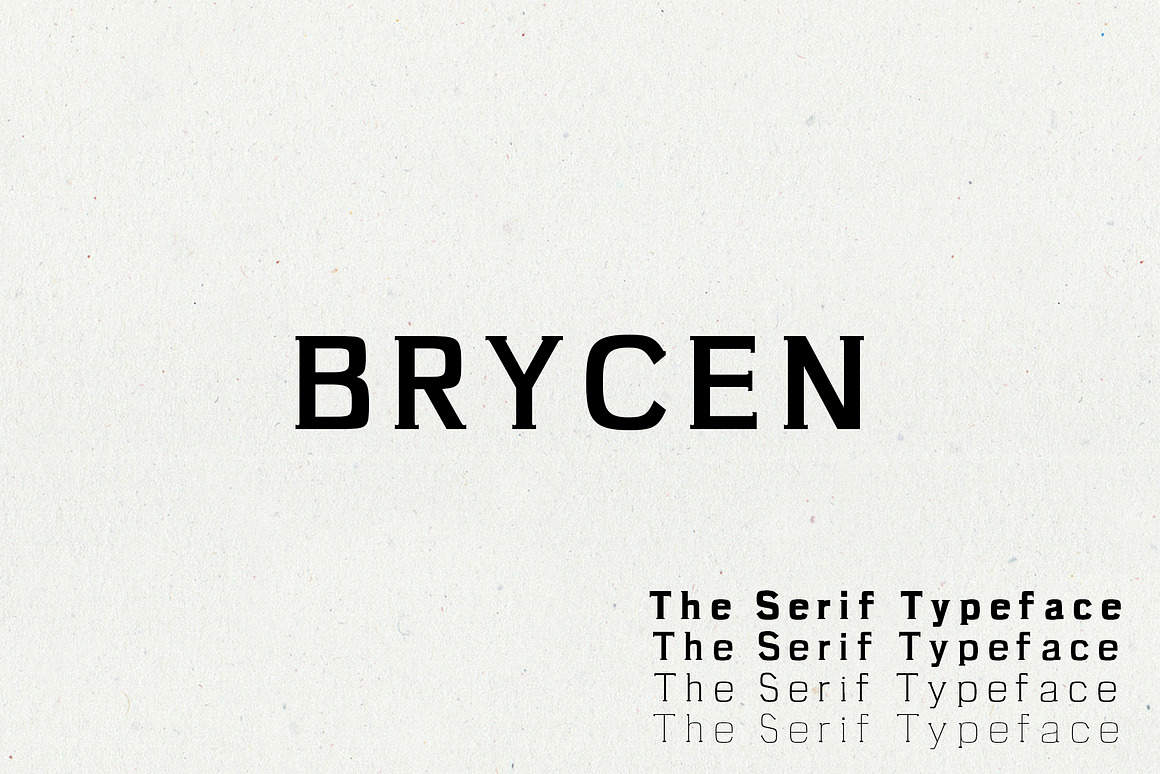
Brycen Serif Premium 7 Font Family
Brycen Serif Premium 7 Font Family is perfect for luxury book publishing, premium magazine layouts, sophisticated corporate communications, upscale branding materials, academic publications, professional documentation, editorial excellence, and distinguished print applications.
Brycen Serif Premium 7 Font Family is exciting because it delivers unparalleled typographic sophistication with meticulously crafted serif details and refined proportions that ensure exceptional readability while projecting premium quality. Its comprehensive weight range provides complete design flexibility for complex publishing projects requiring editorial excellence and professional distinction.
Brycen Serif Premium 7 Font Family family includes seven weights from thin to black with matching italic variations, offering designers fourteen expertly balanced font styles for complete typographic control and sophisticated hierarchical systems across all premium applications.
Brycen Serif Premium 7 Font Family Free Download represents the pinnacle of premium serif typography designed specifically for luxury editorial solutions and professional publishing excellence. This exceptional typeface collection showcases masterful attention to detail through its refined serif construction and carefully optimized character spacing that enhances sustained reading comfort while projecting authoritative elegance. The font's extensive premium range makes it particularly suitable for luxury publishers, high-end brands, academic institutions, and media companies requiring complete typographic flexibility with unwavering quality standards.
Editorial professionals consistently choose Brycen Serif Premium 7 Font Family for its outstanding performance in premium publications requiring sophisticated visual hierarchy and extended reading comfort. The font's comprehensive weight variations and refined styling ensure excellent readability across all applications from detailed footnotes to commanding headlines. Its classical foundation provides familiar reading comfort while contemporary refinements ensure optimal performance in both digital and luxury print media environments.
The Brycen Serif Premium 7 Font Family download includes extensive character sets with professional symbols, mathematical notation, and international language support for global publishing compatibility. This thorough coverage ensures seamless implementation across multilingual publications, academic papers, and international luxury communications. The font's consistent spacing and careful kerning optimization create polished layouts that enhance reader engagement and premium presentation quality.
Publishing teams appreciate Brycen Serif Premium 7 Font Family's versatility in creating prestigious editorial materials that establish immediate credibility and professional authority. Its comprehensive premium range transcends single-application limitations while maintaining the elegance required for luxury editorial discourse, making it an invaluable asset for organizations seeking complete typographic solutions through superior serif communication and exceptional publishing flexibility.